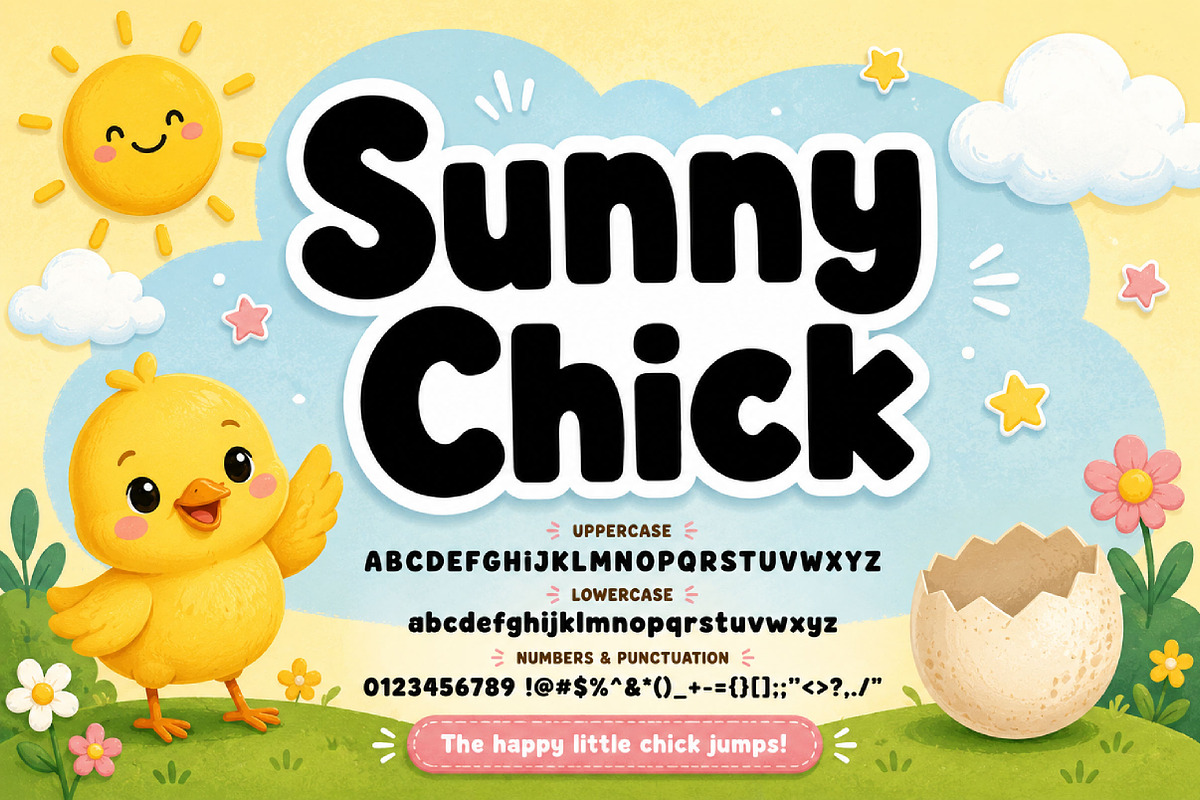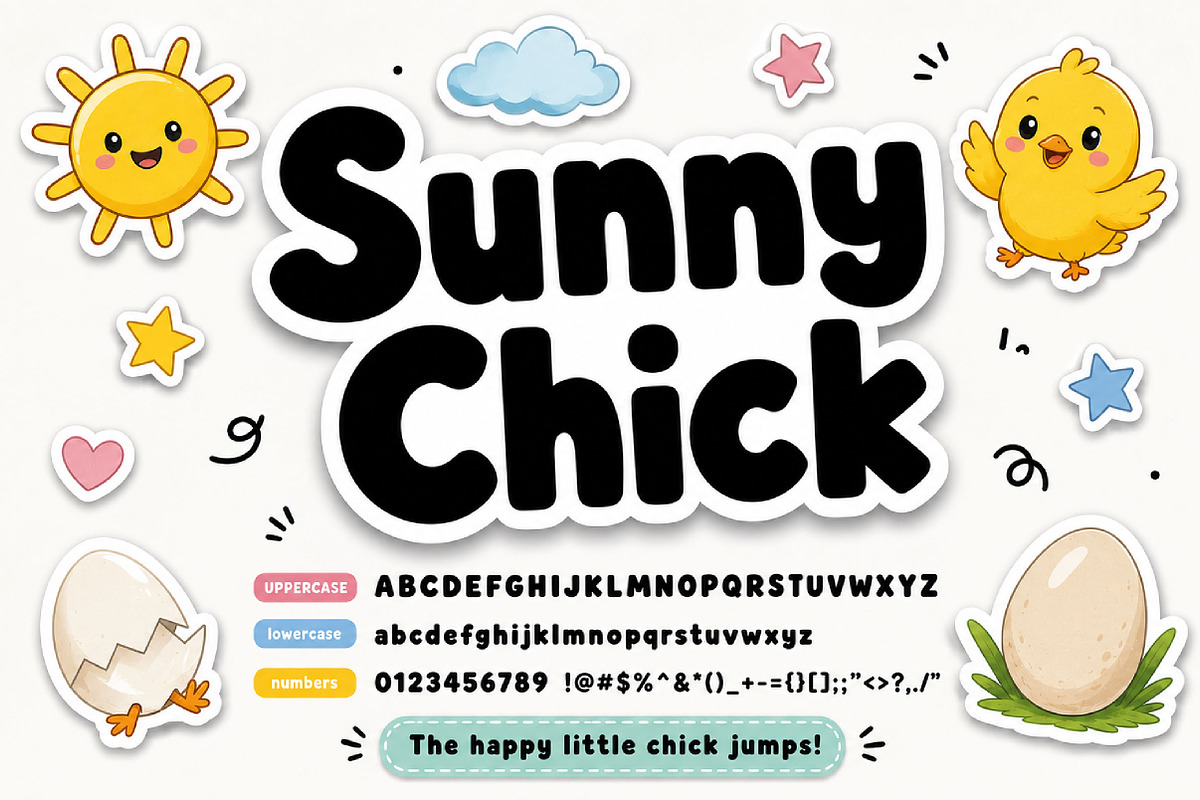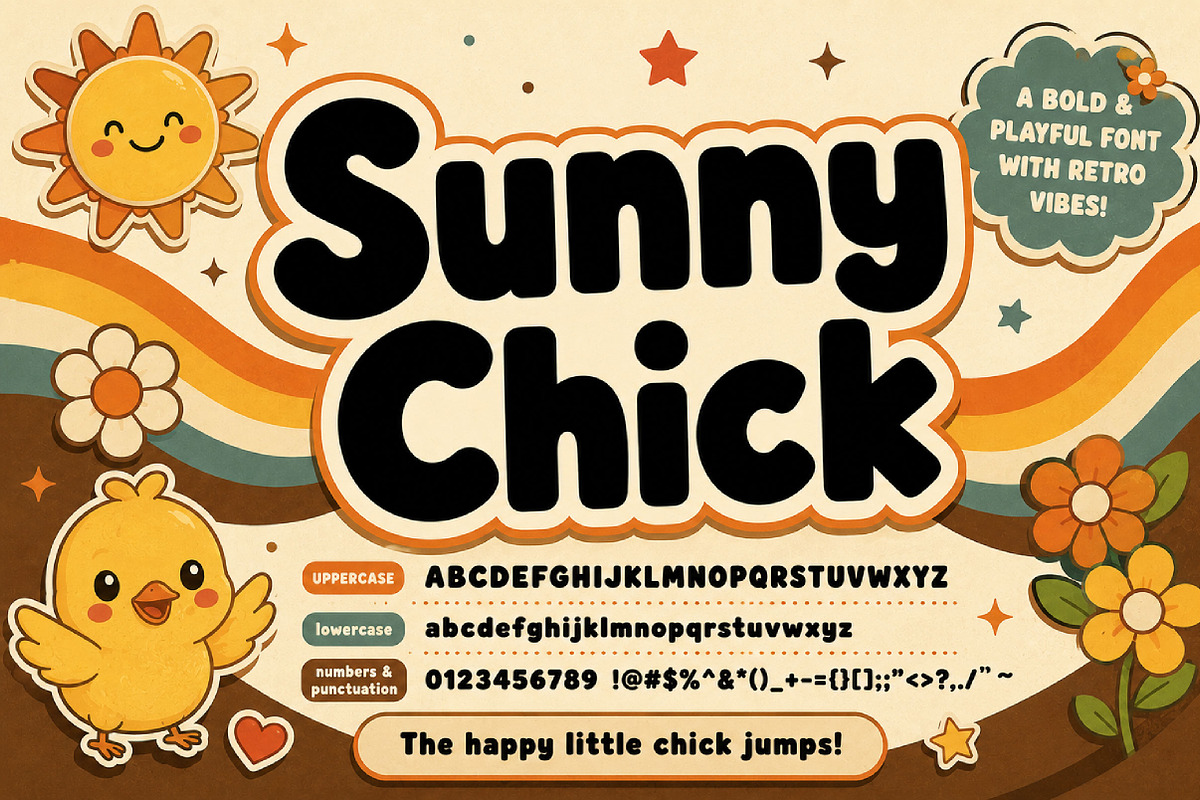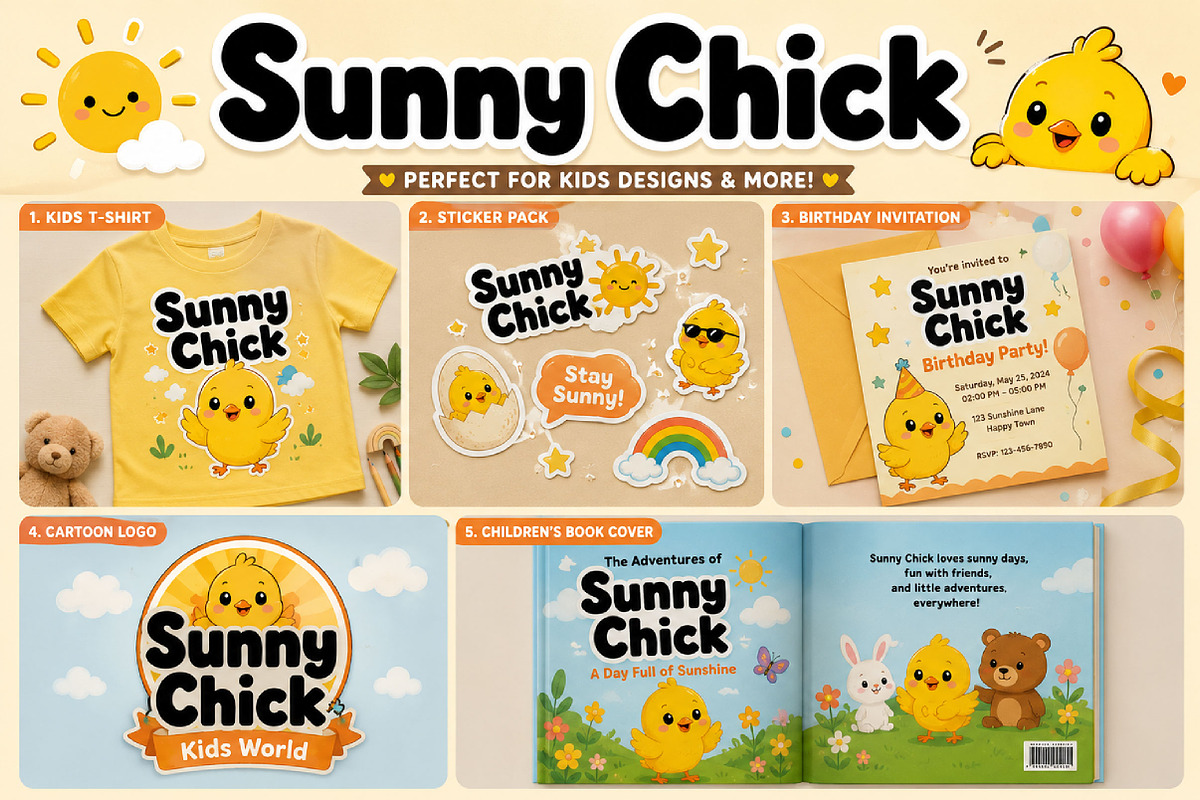
Sunny Chick
Sunny Chick – Playful Bold Display Font
Sunny Chick is a playful and bold display font with soft rounded shapes, perfect for kids’ designs, branding, packaging, posters, social media graphics, and cheerful typography projects.
Sunny Chick is a fun and cheerful display font featuring thick rounded letterforms and a playful personality. Its soft curves and bold appearance create a warm, friendly, and energetic look that instantly stands out.
Perfect for children’s products, playful branding, packaging, posters, stickers, apparel, social media graphics, invitations, and eye-catching headlines, Sunny Chick adds a joyful and charming touch to any design project.
Its chunky style keeps typography highly readable while maintaining a cute and modern feel, making it suitable for both print and digital designs. Whether you are creating fun merchandise, colorful branding, or playful promotional materials, Sunny Chick delivers a bright and memorable visual style.
Kids’ designs
Playful branding
Packaging design
Posters and headlines
Stickers and labels
Merchandise and apparel
Invitations and cards
Cute typography projects
Fun display designs
Uppercase letters
Lowercase letters
Bold rounded style
Playful and cheerful appearance
Soft chunky letterforms
High readability
Perfect for display use